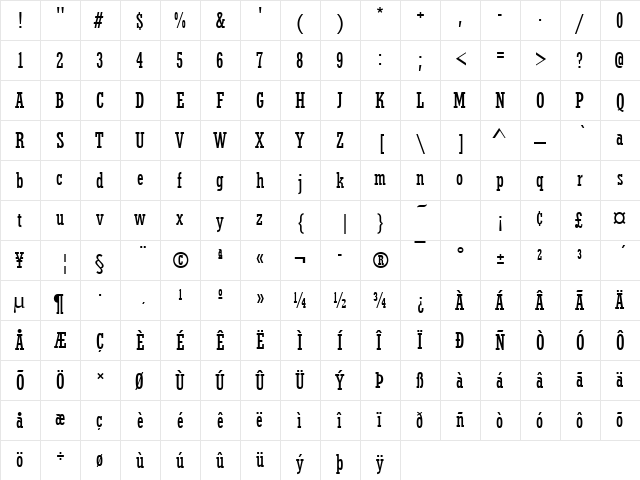
Stymie Becker Reg Cond Regular
Stymie Becker Reg Cond is a composed and adaptable typeface that performs quietly and consistently across a wide range of design contexts. The condensed width makes it efficient for tight spaces without sacrificing legibility.